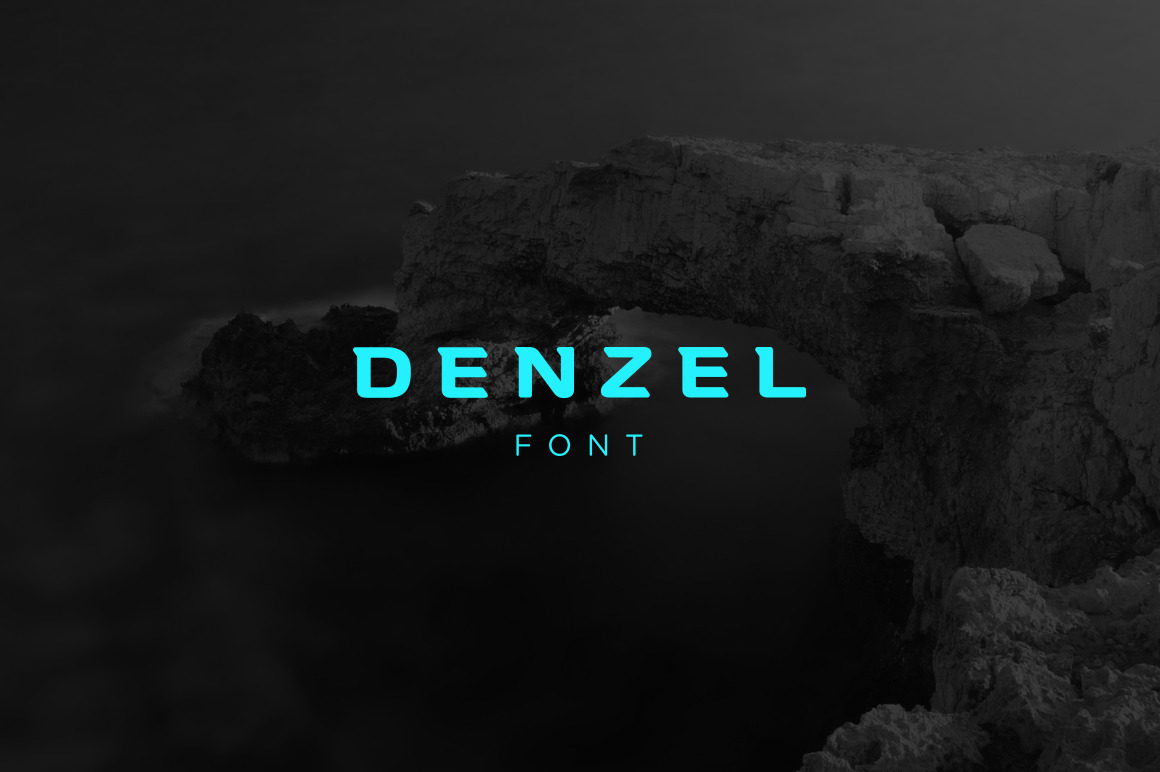
Denzel Font
Denzel is a modern, geometric typeface which was designed in 2016 by Oleg Urazovsky. The font is good for titles and logos.
This font had exactly the right look and feel I wanted for the title of a web site, a printed book, and an e-book of the same content. It performs well in Photoshop and responds well to layer styles. The kerning is perfect. The reason I only gave it 4 stars is because it doesn't have multinational support for Latin-character languages, and I had to do a workaround to create special characters for the Spanish and French versions of the titles I created for those translations of the content. I hope the artist will add that feature in the future.